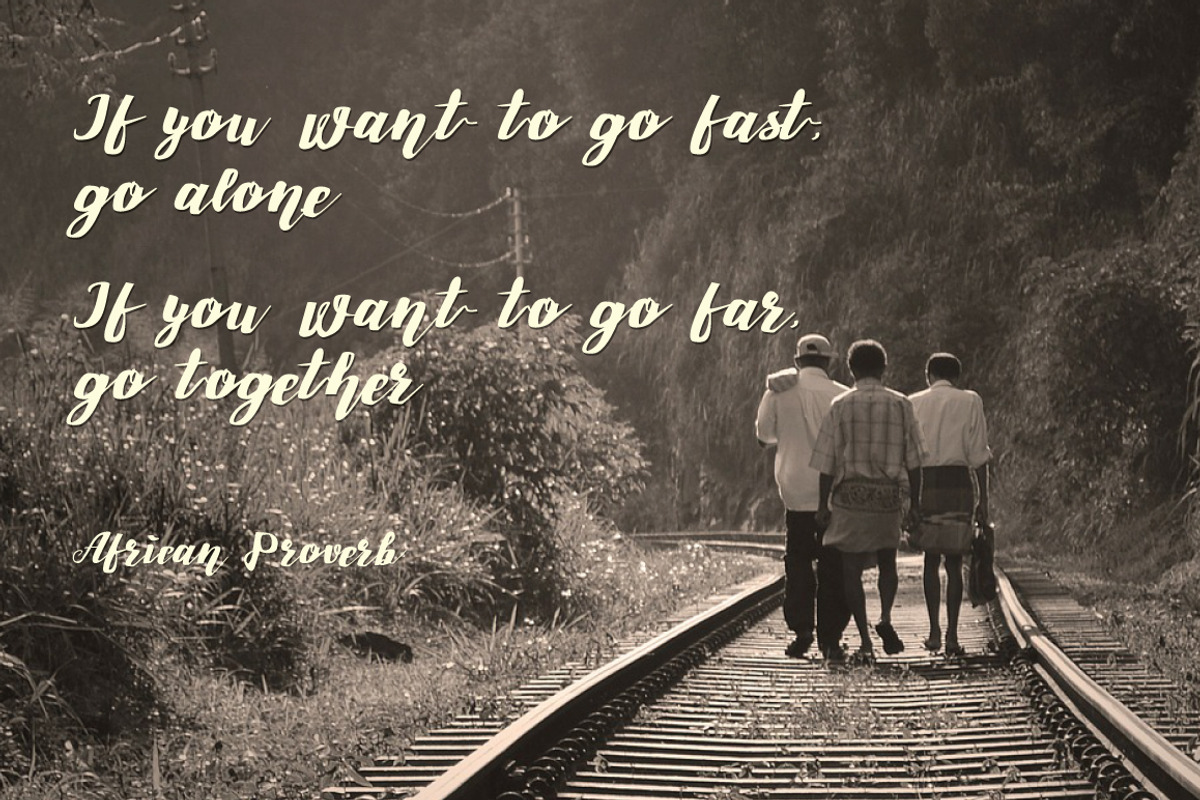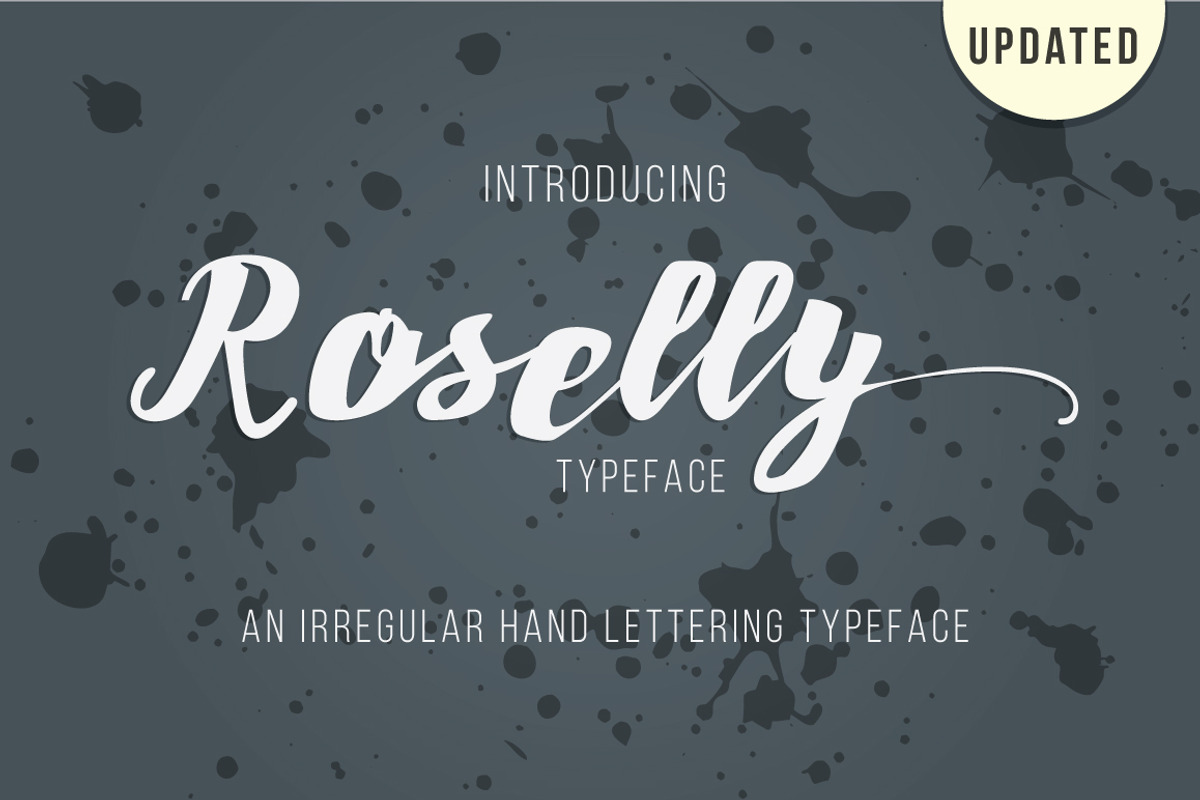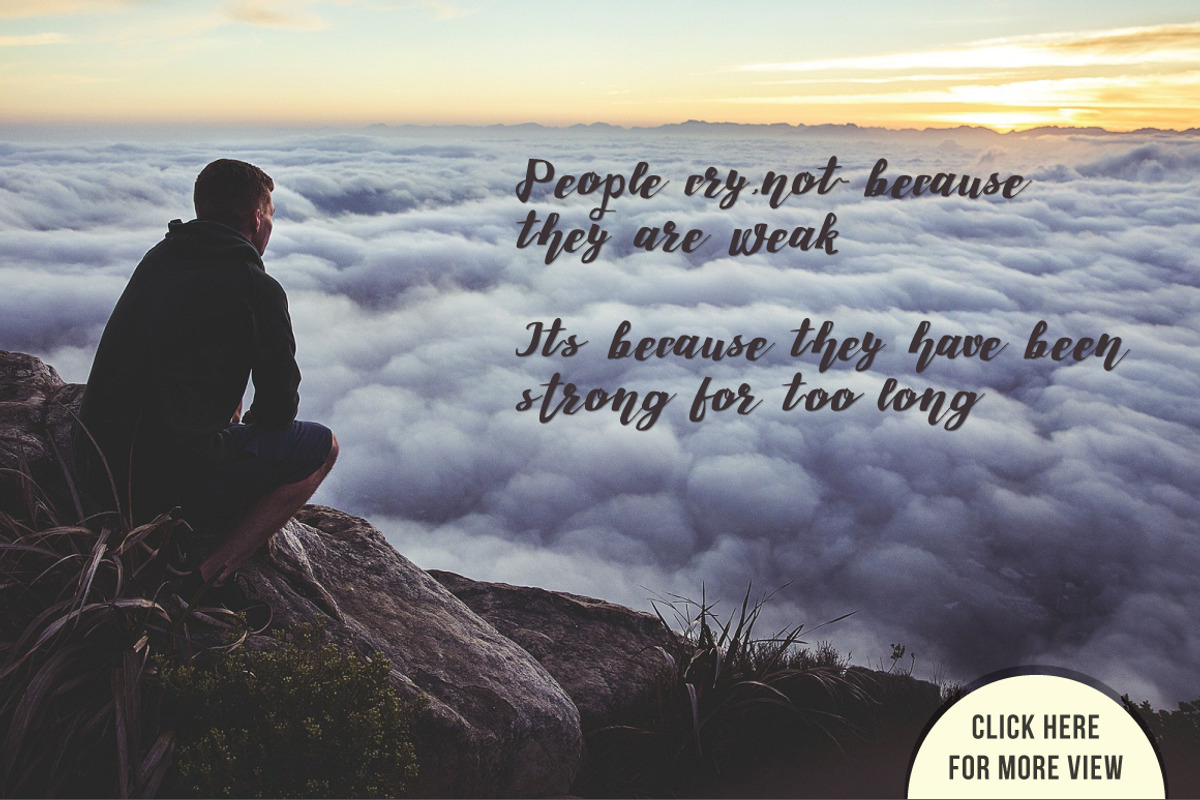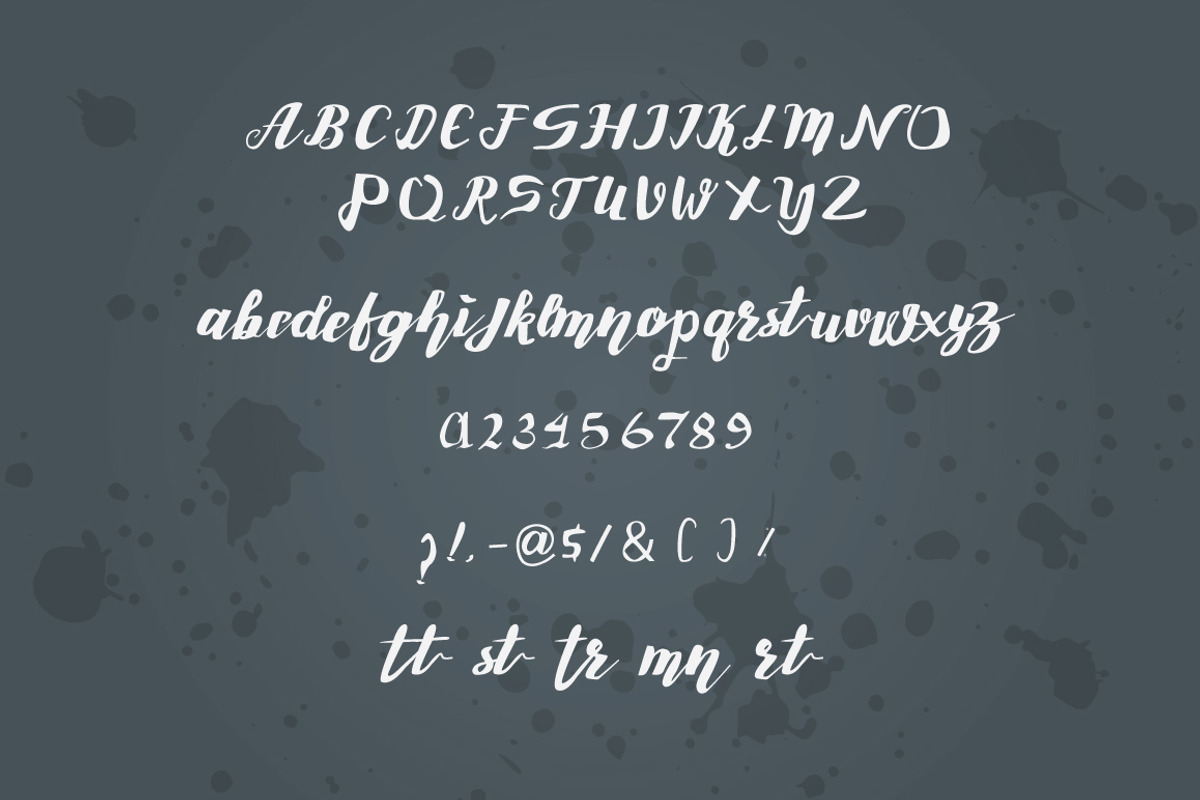
Roselly Typeface
Roselly Typeface by marone is a font selected for branding, posters, packaging, typography.
Why Roselly Typeface is worth a look
Roselly Typeface by marone fits naturally into Branding, posters, packaging, typography.